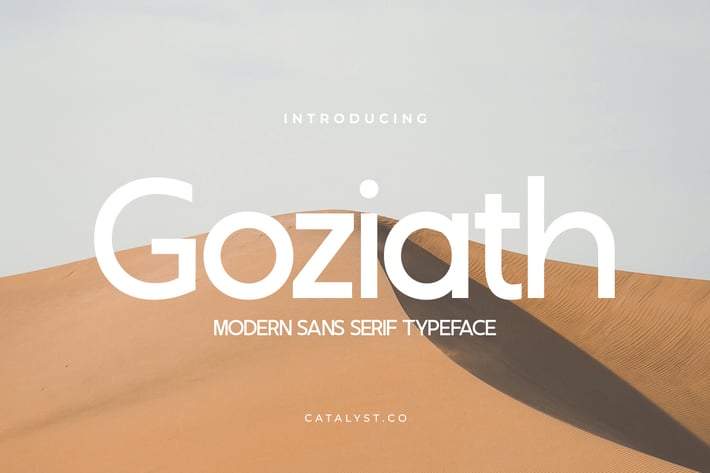
Goziath Modern Sans Serif Font
Goziath Modern Sans Serif Font is a modern geometric sans serif typeface featuring smooth curves, balanced widths, and a clean minimalist structure. Designed with refined letterforms, unique ligatures, and stylistic alternates, it delivers a contemporary look perfect for branding, editorial design, digital interfaces, and bold display headlines. Its versatility makes Goziath suitable for both professional and creative layouts, offering sharp readability and a modern aesthetic. Includes uppercase, lowercase, ligatures, alternates, symbols, and numerals in OTF, TTF, and WOFF formats.
Relevance and Use Cases is perfect for branding identities, website headers, editorial layouts, product packaging, tech interfaces, advertisements, magazine titles, corporate presentations, and digital design systems requiring a clean, modern sans serif aesthetic. Suitable for branding, tech platforms, UI/UX headers, posters, packaging, editorial layouts, corporate identity kits, marketing materials, lifestyle visuals, and any project requiring a clean modern sans serif.
Main Features
Ligatures & Alternate
Numeral & Punctuations
* Multilingual Support